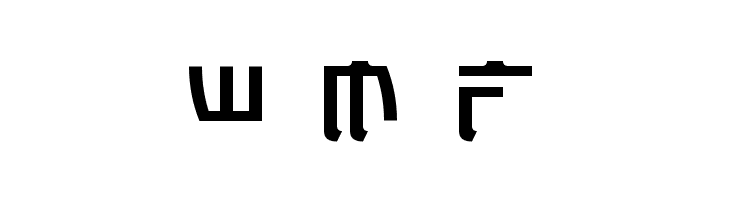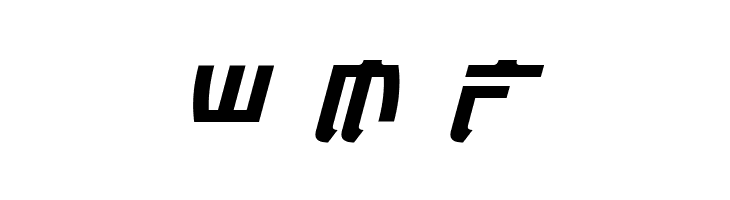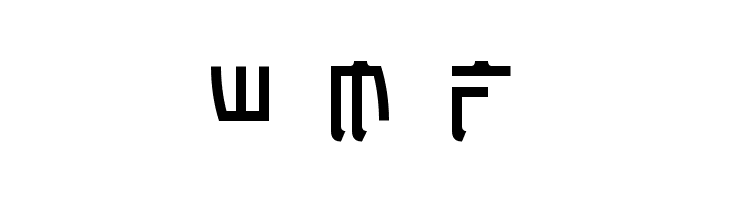
• Nippon Tech
A futuristic, tech-inspired font with geometric and angular shapes.
• Nippon Tech Bold
A bold, futuristic font with geometric shapes and sharp angles, perfect for tech themes.
• Nippon Tech Bold Italic
A bold, italicized font with a futuristic, tech-inspired design.
• Nippon Tech Condensed
A futuristic, condensed font with angular, geometric shapes.
• Nippon Tech Condensed Bold
A bold, futuristic font with a condensed, geometric design.
A futuristic, condensed, bold italic font with sharp, angular design.
• Nippon Tech Condensed Italic
A futuristic, condensed italic font with angular and sharp characters.
• Nippon Tech Italic
A futuristic, angular italic font with a bold and technological style.